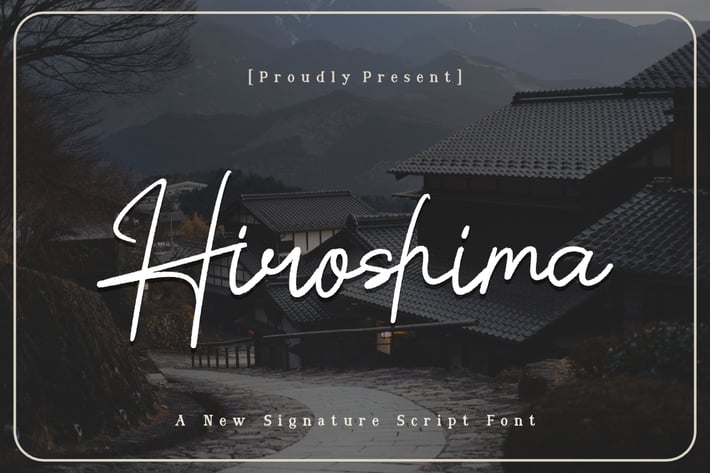
Hiroshima Signature Script Font
Hiroshima Signature Script Font, This font is made with a high premium quality level which you can use as flyers, quotes, posters, banners, packaging, merchandise, logotypes and much more.